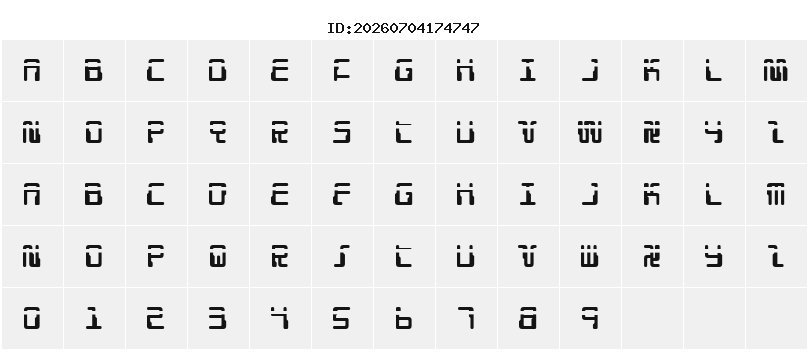
• Font Name: Droid Lover Laser
About Droid Lover Laser.ttf
Droid Lover Laser.ttf is a modern, elegant sans-serif font designed for ultimate readability and visual harmony. Perfect for branding, headlines, web design, and print materials.